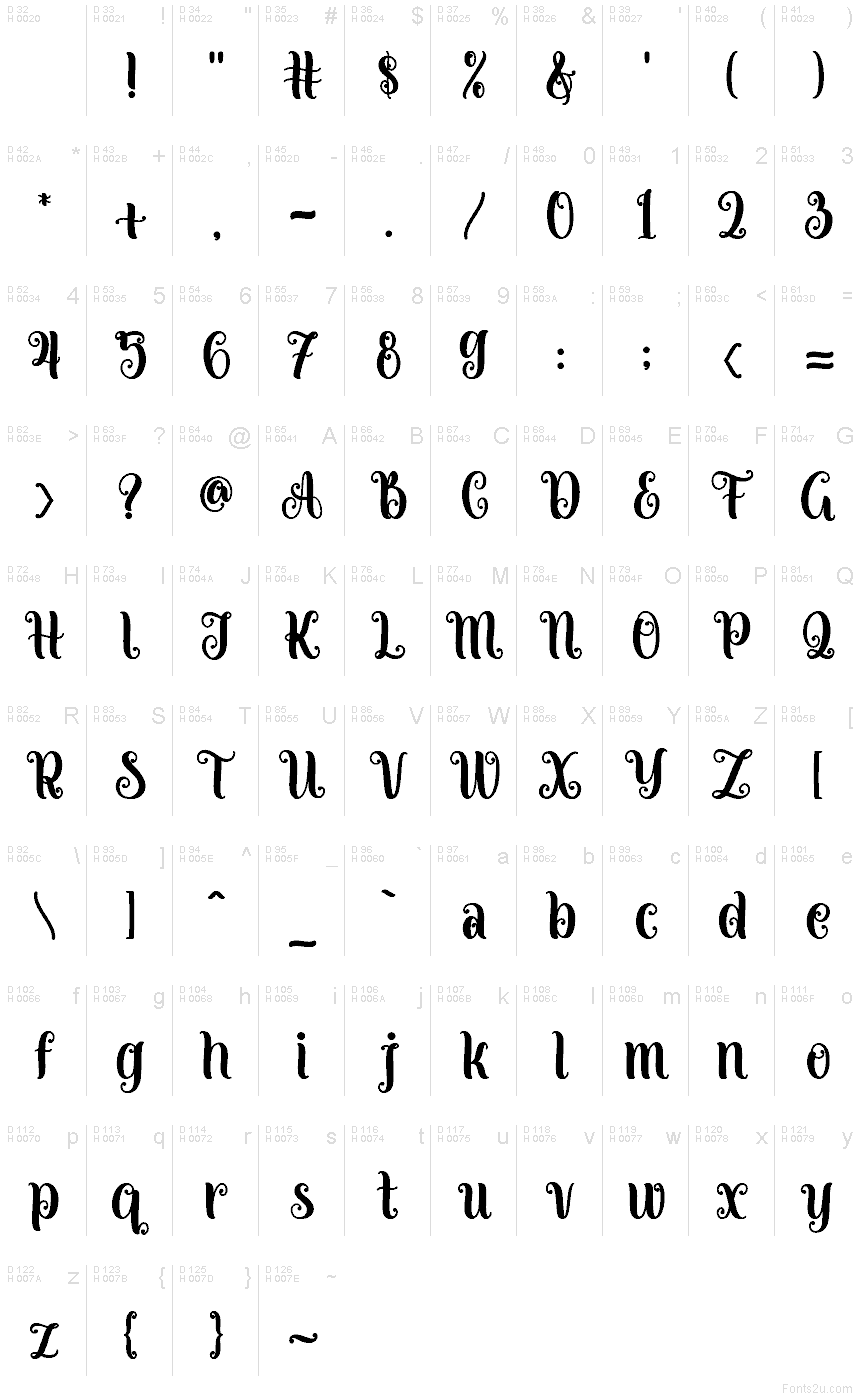
Christmas Wonderland
Christmas Wonderland font by Mozatype is a free curly Christmas holiday typeface that instantly feels like vintage greeting cards and frosted shop windows. Its looping strokes, ribbon-like curves, and lightly ornate serifs give every word a storybook charm, as if it’s been hand-lettered for a cozy winter market stall. The letters pack closely together, creating a warm, busy texture that feels festive without turning messy.
Using Christmas Wonderland, you can dress up gift tags, greeting cards, party invitations, seasonal posters, mug designs, and social media graphics with the same cheerful voice. This free font shines at larger sizes where its swirls and curls can really show, while a simple sans serif or handwritten script makes an easy pairing for subheads and body copy.